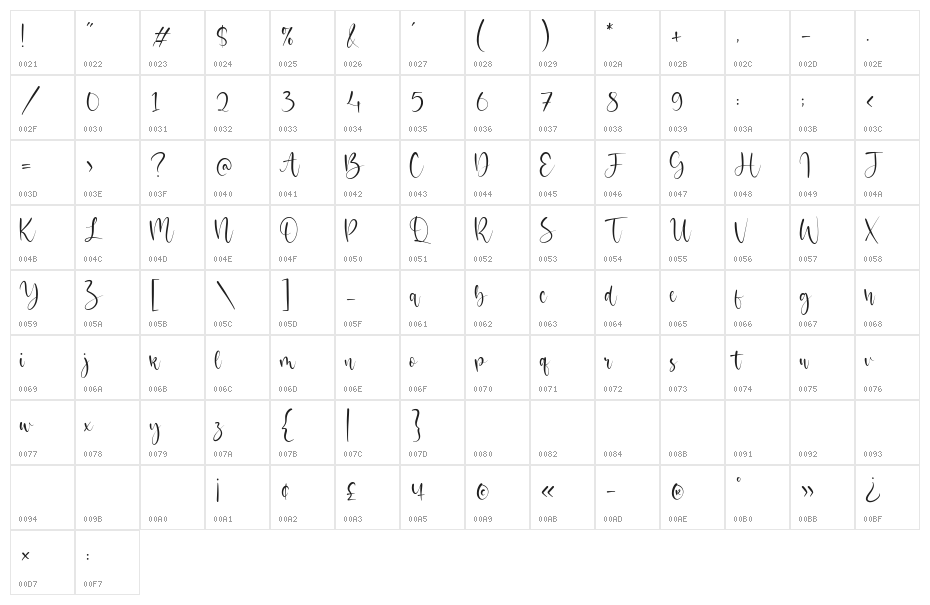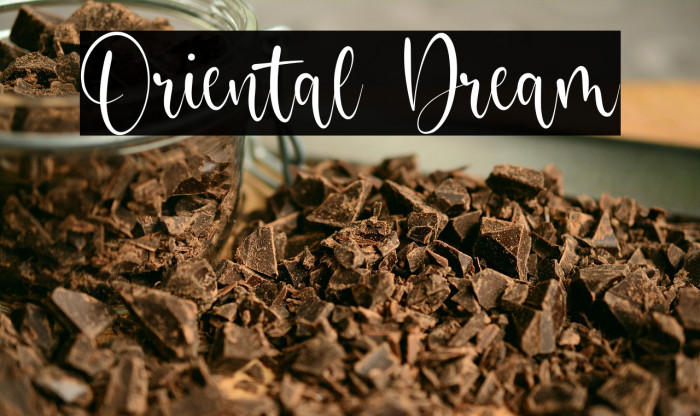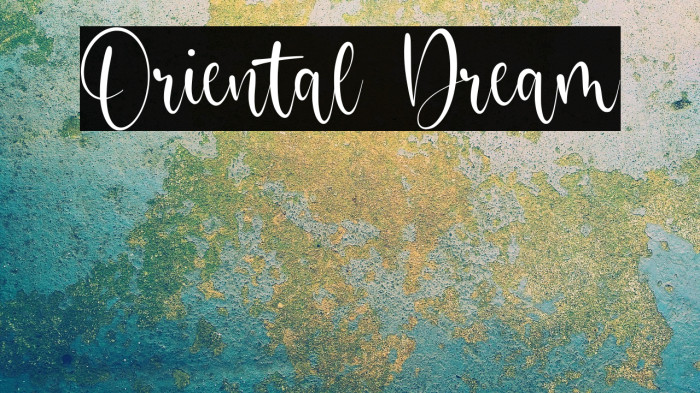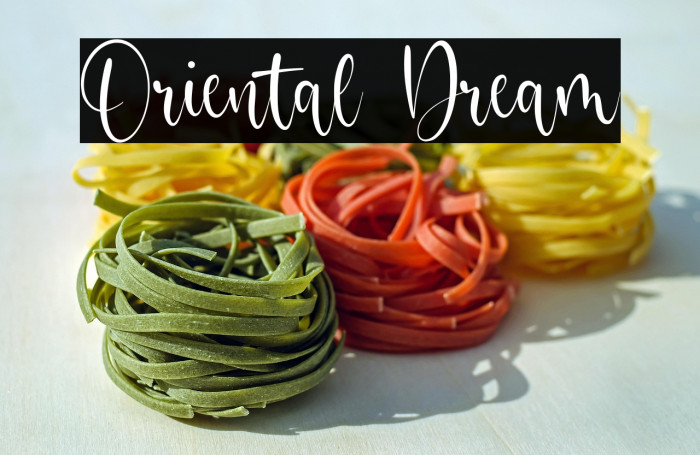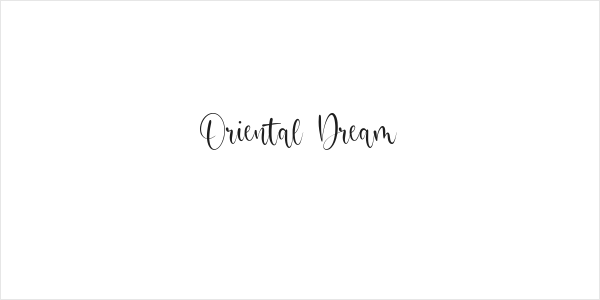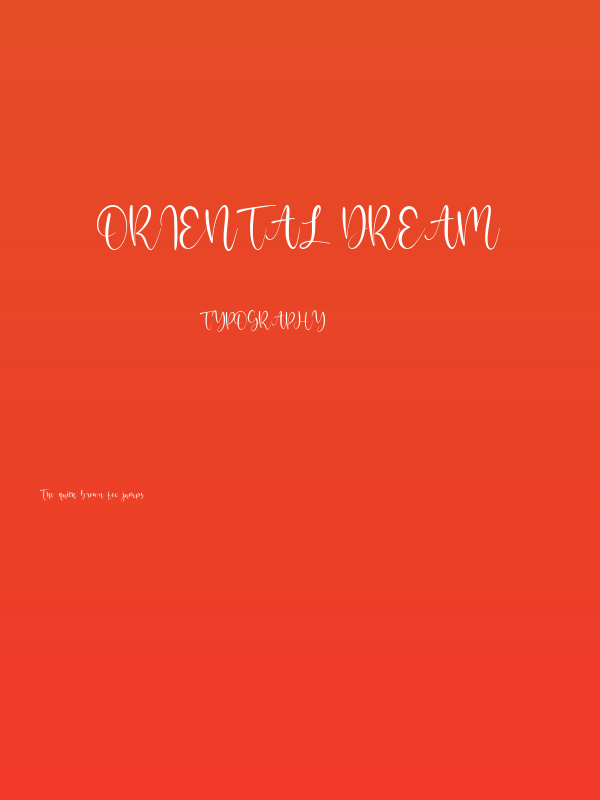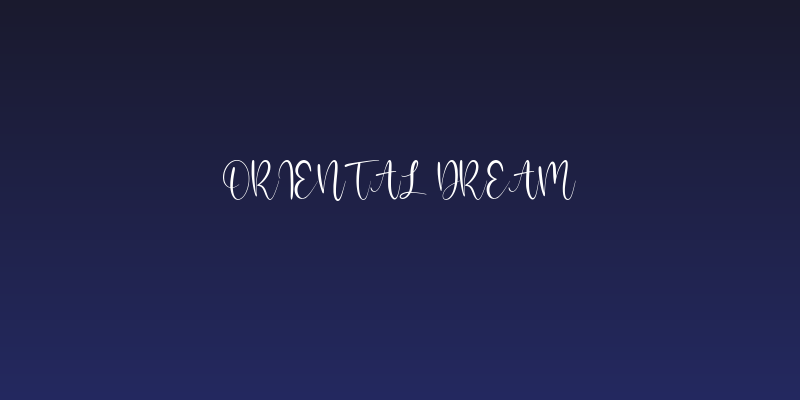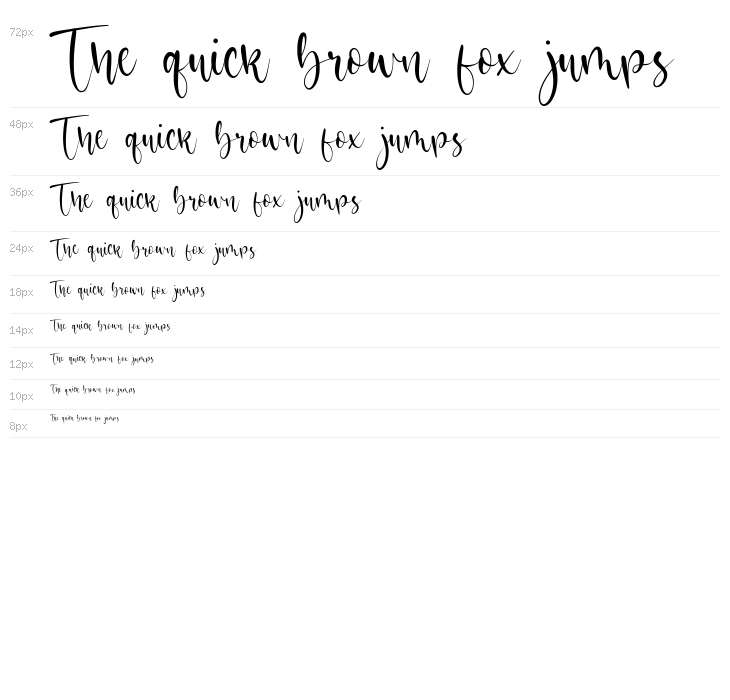
Oriental Dream Font
Oriental Dream Description
This font exudes a graceful and elegant script style, characterized by its flowing, cursive letterforms. The uppercase letters are tall and slender, with sweeping ascenders and descenders that add a touch of sophistication. The lowercase letters maintain a consistent fluidity, enhancing the overall aesthetic with their smooth curves and loops. The numerals are designed to match the script's elegance, featuring subtle curves and a harmonious balance. Special characters are thoughtfully integrated, maintaining the font's cohesive style. This font is perfect for projects that require a touch of elegance and refinement.